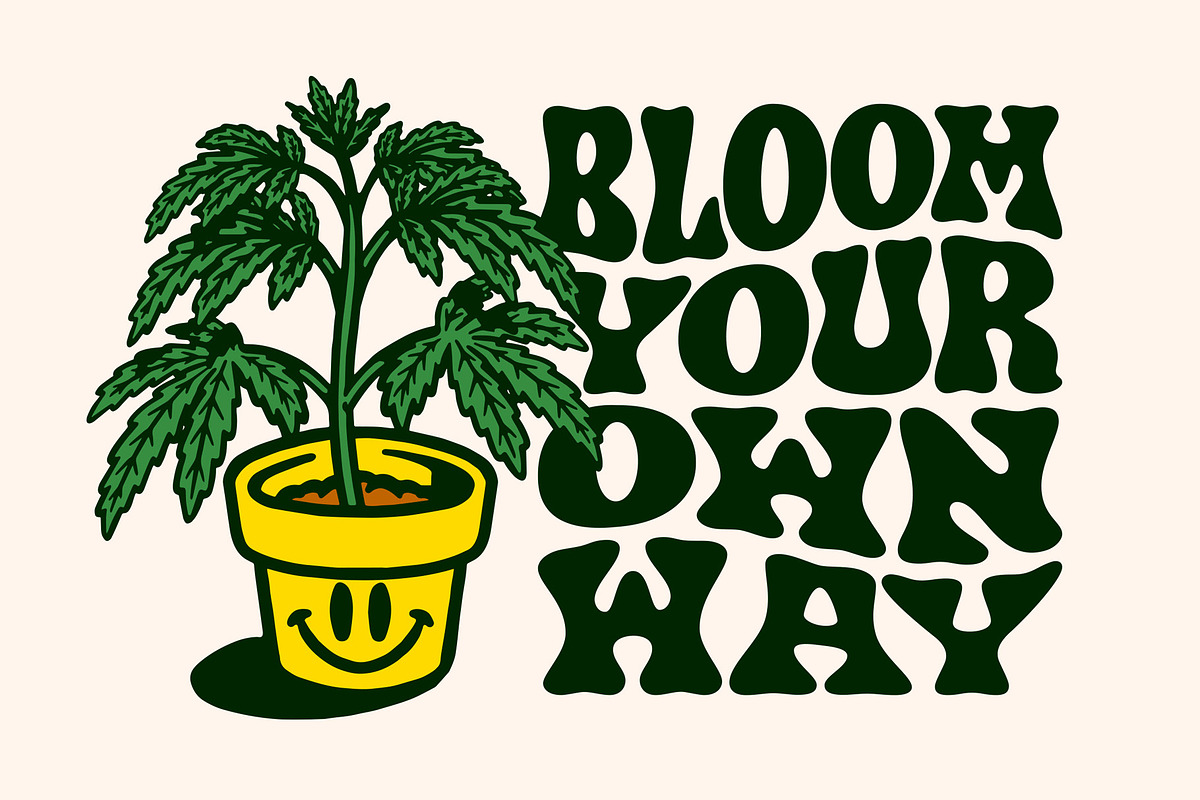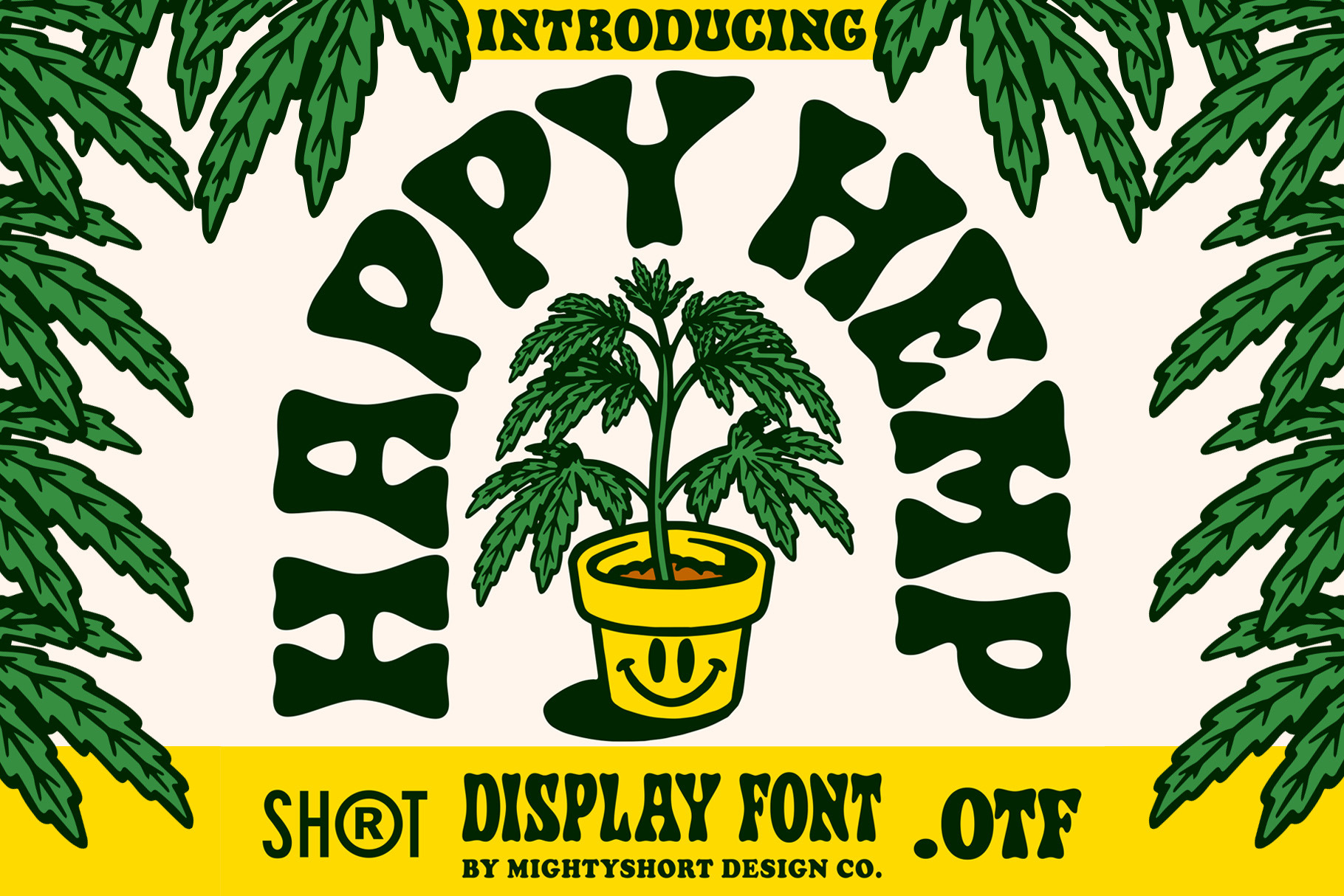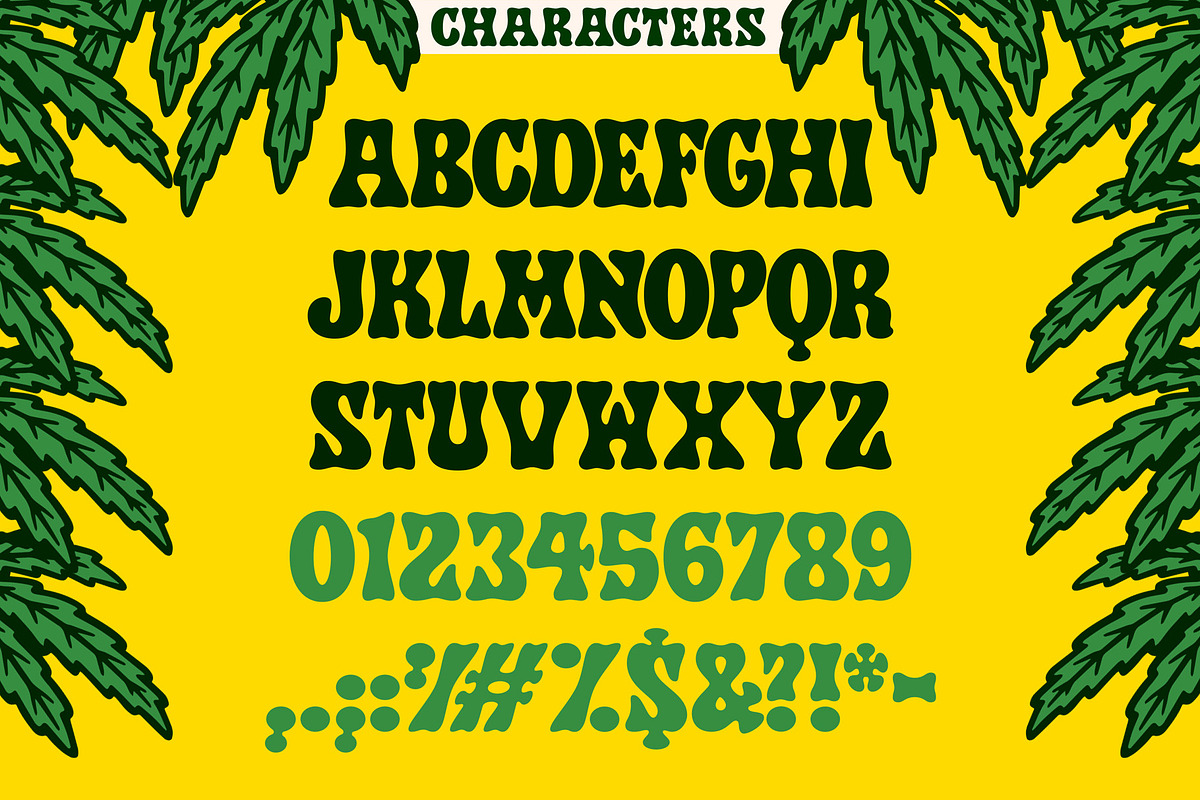
Happy Hemp Font
Introducing 'Happy Hemp,' a font that embodies the joy of growth and the organic spirit. With playful curves and natural charm, this typeface brings a touch of whimsy to your designs. Like a happy plant flourishing, Happy Hemp infuses your words with positivity and a carefree vibe. Let your creativity bloom with this lively and inviting font, designed to add warmth and character to any project. Embrace the organic joy of Happy Hemp for a truly uplifting typographic experience.